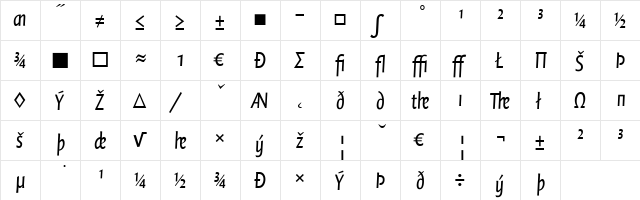
QuadraatSansCon Italic
Design Context for QuadraatSansCon Typeface
QuadraatSansCon offers clean, dependable letterforms without strong stylistic allegiance, making it a practical choice for designers who need flexibility. The dynamic lean of this cut emphasises speed and emphasis in any layout.
Pro Tip: Try QuadraatSansCon for annotation and caption copy alongside an upright companion — the contrast in angle creates a dynamic but ordered typographic system.